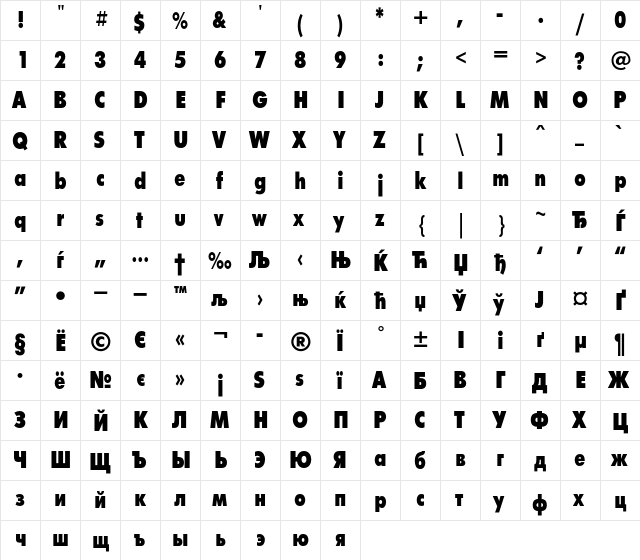
FuturaFuturisXCondC Regular
Design Context for FuturaFuturisXCondC Typeface
FuturaFuturisXCondC has a distinctly futuristic character, with geometric precision and clean angles that feel at home in technology, gaming, and sci-fi contexts. The condensed width makes it efficient for tight spaces without sacrificing legibility.